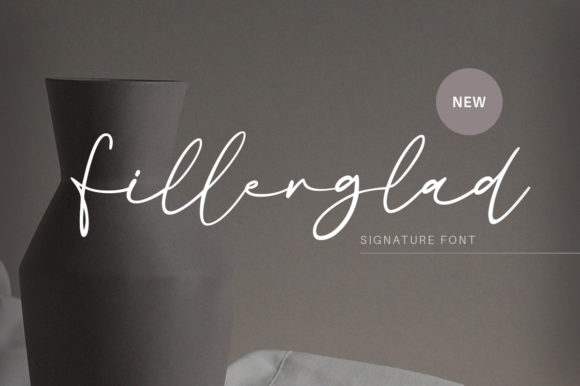
Unleash the elegance of Fillerglad, a script font family designed to captivate and enchant. Created by the skillful hands of letterhend, this font is a symphony of delicate curves and graceful strokes.
Immerse yourself in a world of beauty and sophistication as you explore the endless possibilities of Fillerglad. Its refined and timeless style adds a touch of luxury to any project, making it the perfect choice for discerning designers and creative professionals.
With its natural flow and effortless charm, Fillerglad brings a sense of authenticity and warmth to your designs. Its versatility shines across a wide range of applications, from elegant wedding invitations and breathtaking stationary art to eye-catching social media posts and captivating logos.
Let your imagination soar as you craft stunning visual masterpieces with Fillerglad. Its alluring presence commands attention, effortlessly elevating your designs to new heights of sophistication. Experience the transformative power of Fillerglad and elevate your creative vision.
Fall in love with the beauty and grace of Fillerglad today. Discover the endless possibilities and create designs that leave a lasting impression. Embrace the elegance and make your mark with Fillerglad.